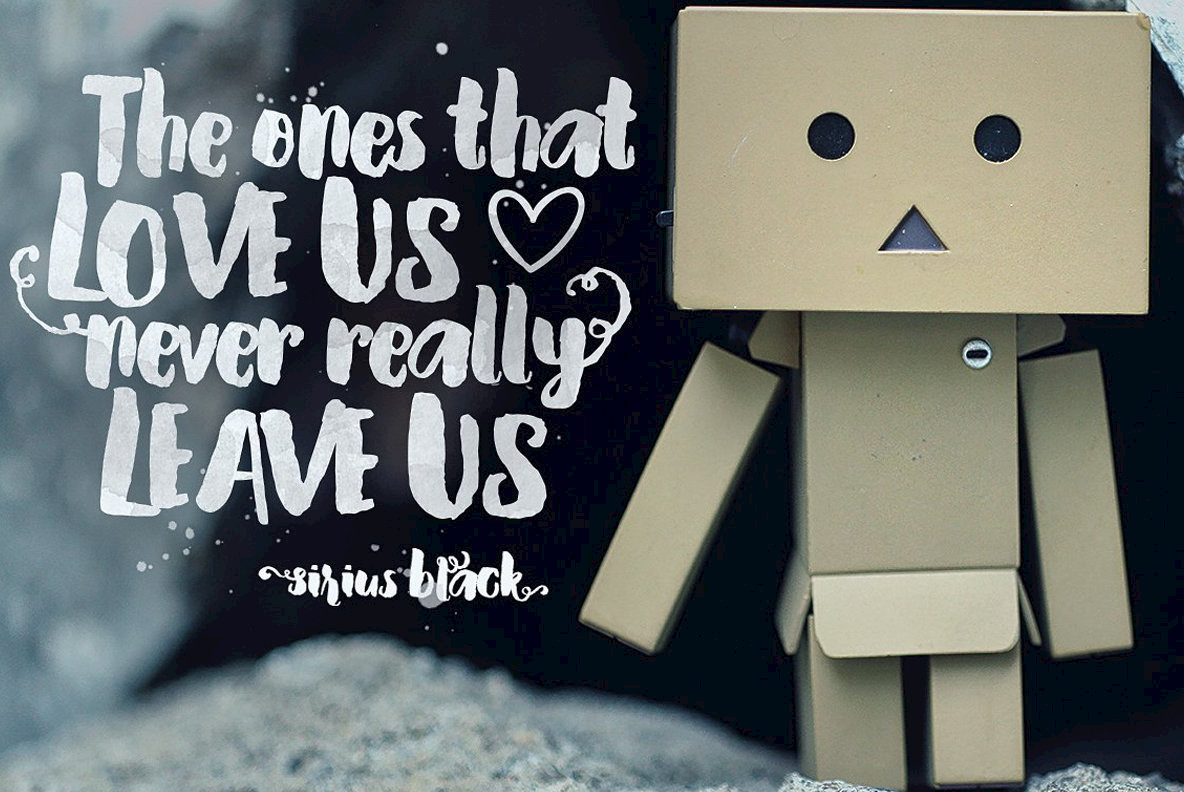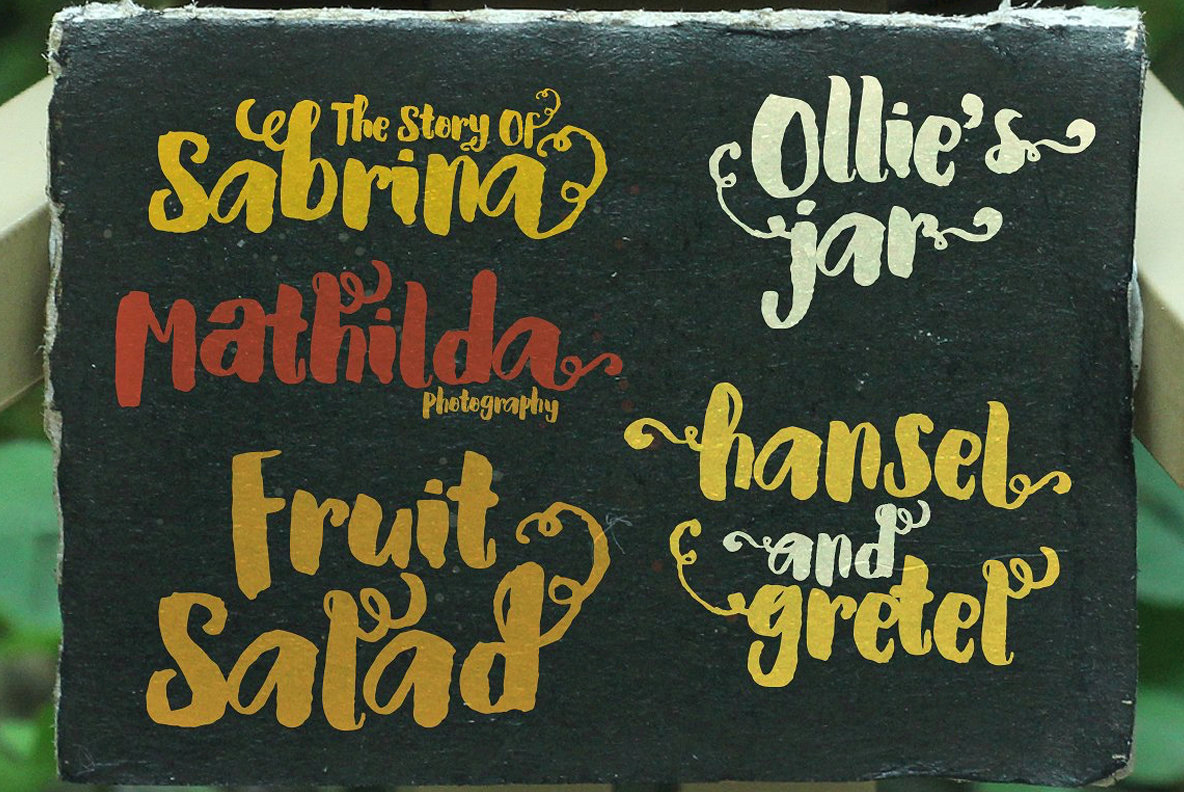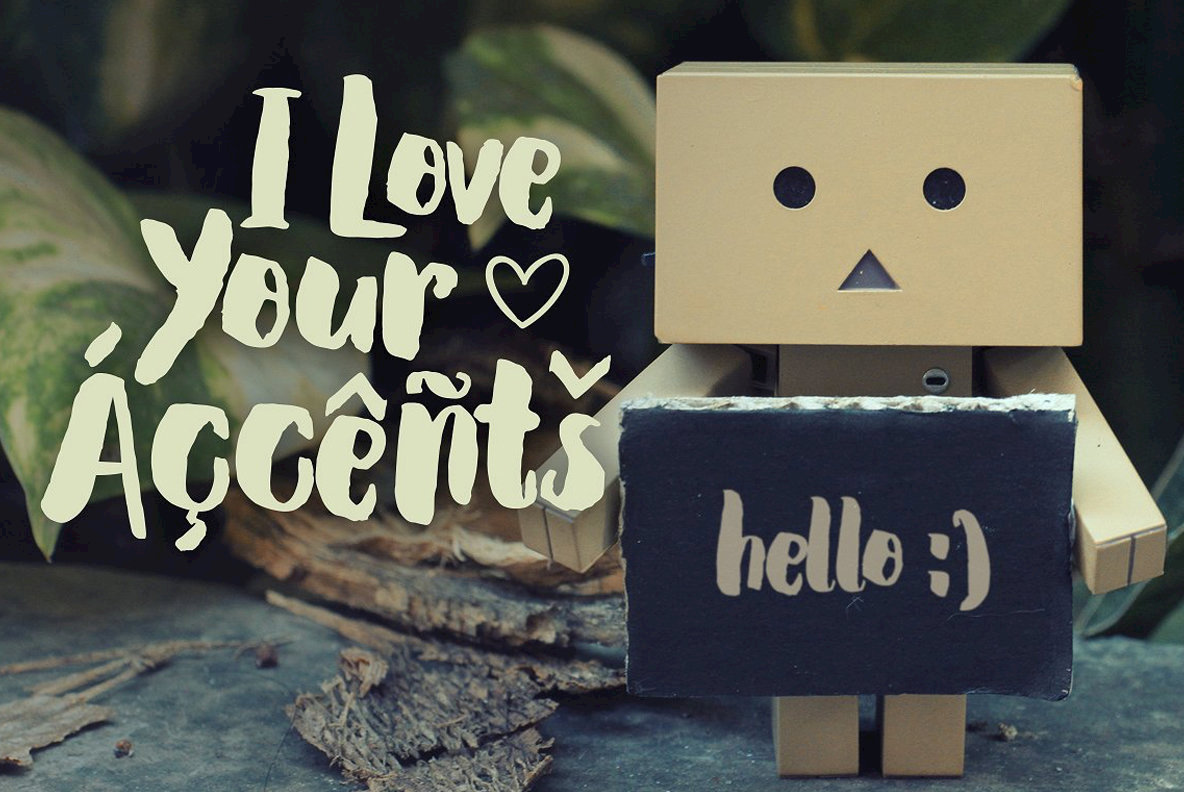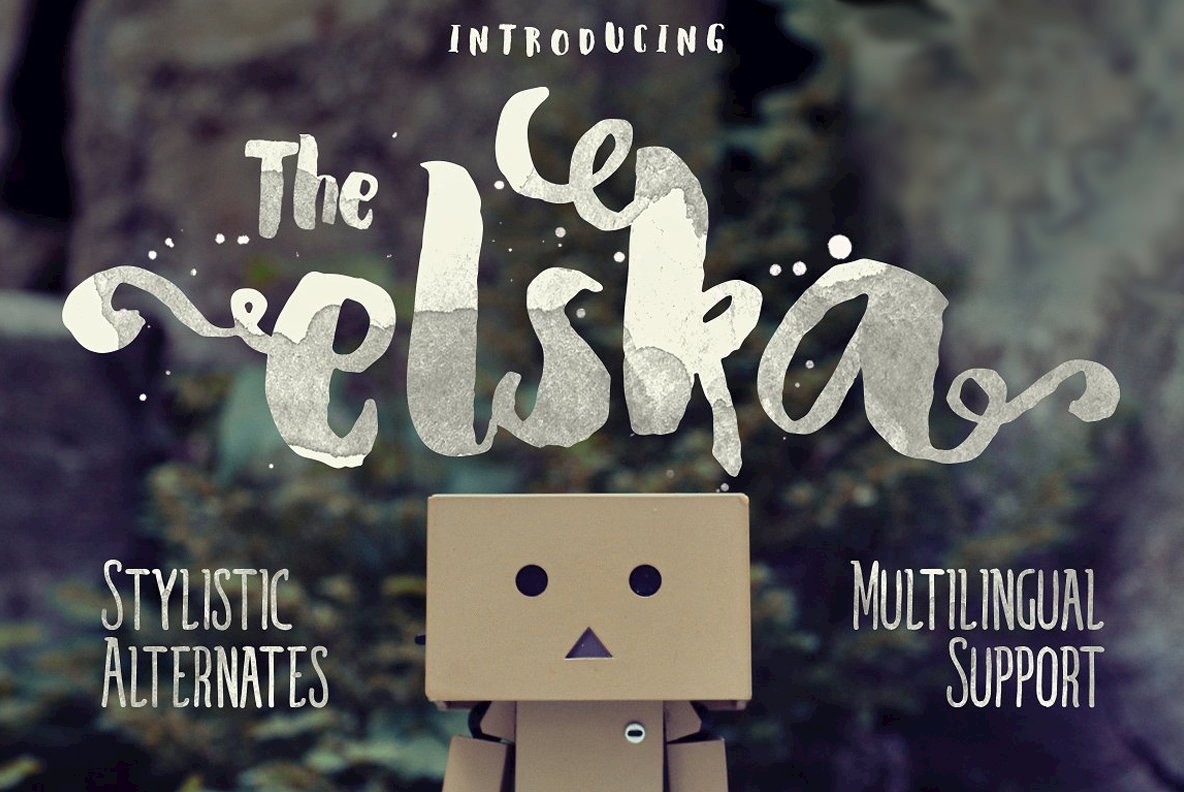
Elska Font
Elska
Elska is a blobby, yet cute hand lettering style typeface, published by Konstantine Studio.
Features include:
- Stylistic Alternates